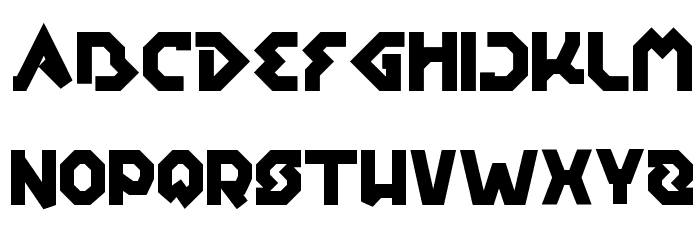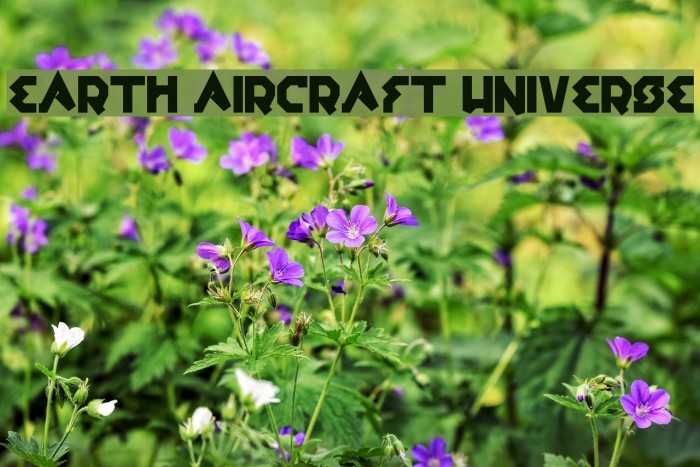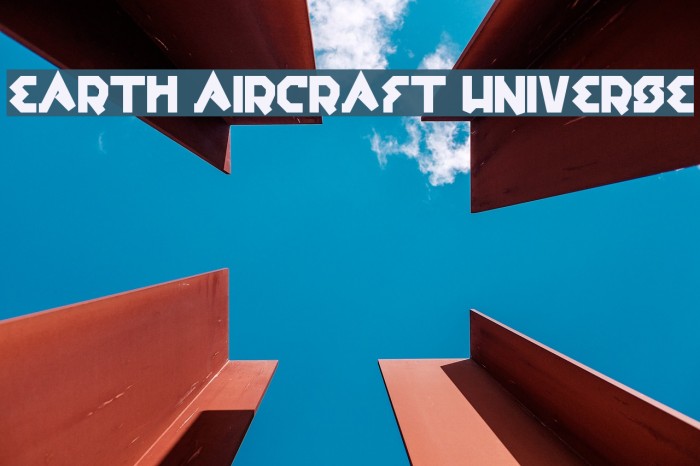
earth aircraft universe Font
This font features a bold, geometric design with sharp angles and a futuristic aesthetic. The characters are constructed with a series of straight lines and angular cuts, giving it a highly stylized and modern appearance. The uppercase and lowercase letters maintain a consistent style, with unique shapes that make each character stand out. The numbers and special characters follow the same design principles, ensuring a cohesive look across all glyphs. This font is ideal for projects that require a strong, impactful visual presence.
- Proposed Projects: Ideal for sci-fi themed designs, video game titles, posters, and branding that requires a modern and impactful look.
- Overall Style: Futuristic